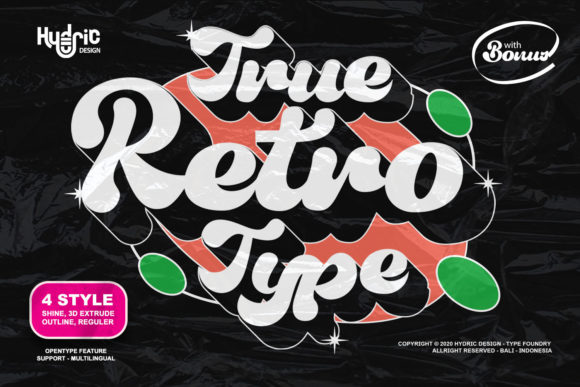
Journey back to the vibrant era of the 1950s with True Retrotype, a captivating display font that exudes nostalgia and boldness. This masterpiece, brought to life by Hydric Design, is not just another font; it's a gateway to a bygone era where style and confidence danced together. Let True Retrotype inject your designs with a dash of vintage charm.
With its strong, confident strokes, True Retrotype commands attention like a classic sports car. Its dynamic curves embody the energy of a bustling city, while its nostalgic character adds a touch of warmth and familiarity. Imagine your website headlines or logotype projects adorned with this font, radiating a timeless allure that draws visitors in.
True Retrotype is more than a font; it's an experience. It's a ticket to a simpler time when style was king and confidence was contagious. Let your designs reflect this iconic era with the help of True Retrotype. Transform your website into a retro masterpiece, where every headline is a conversation starter and every logotype a work of art.
Whether you're a designer seeking to add a touch of vintage flair to your creations or a business owner looking to captivate your audience, True Retrotype is your perfect companion. Its versatility knows no bounds, making it suitable for a wide range of projects. From retro-inspired websites to captivating logos, True Retrotype breathes life into your designs.
Don't settle for ordinary fonts that blend into the background. Embrace the boldness of True Retrotype and watch your designs take center stage. Let your words dance with confidence and style, leaving an unforgettable impression on your audience. True Retrotype is not just a font; it's a statement—a declaration of your impeccable taste and unwavering style.